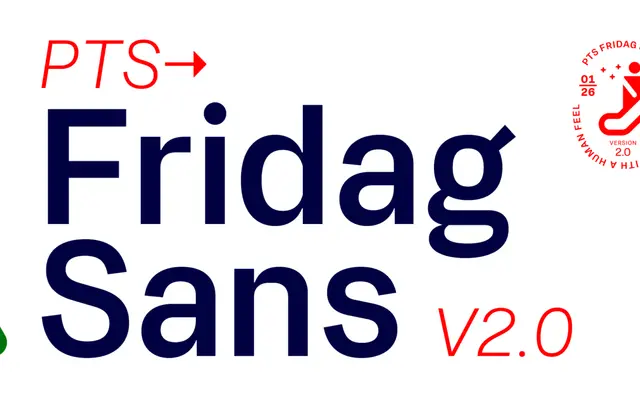
PTS Fridag Sans
A technically minded sans with humanist detailing, offering eight weights with italics and extensive Latin coverage across more than 200 languages.
Positioned as a tech sans with a human feel, this family runs from ExtraLight to Black with matching italics across all eight weights. Stylistic sets allow switching between double and single-storey forms for 'a' and 'g', a spurless 'u' and square punctuation features, giving designers control over the typeface's character. Glyph coverage is broad, extending to Latin Extended-A and -B with superscripts, fractions, ordinals and a full suite of currency symbols.
Described as a 'tech sans with a human feel', the typeface blends geometric precision with humanist warmth, featuring alternate single-storey a and g, spurless u and other humanist details alongside a clean technical structure.